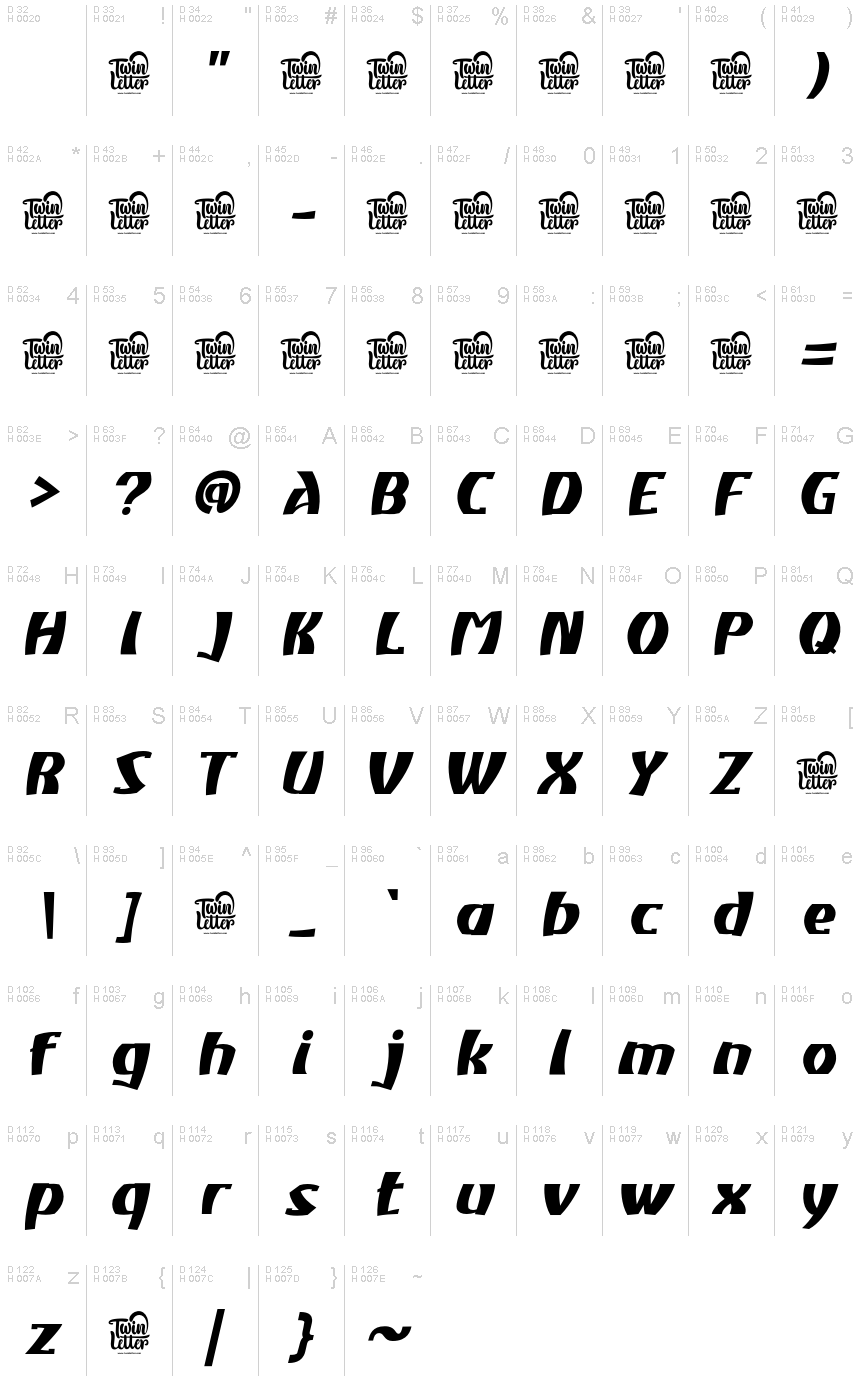
Atiku Bold Slanted font from the Atiku family, designed by Twinletter, is a distinguished choice for contemporary design projects. With its bold and slanted style infused with Japanese aesthetics, this font exudes a sense of luxury and uniqueness. Perfect for making your brand stand out, it enchants viewers with its exotic appeal and sophisticated charm.
Ideal for advertisements, social media posts, and creative projects, Atiku Bold Slanted offers versatility with numerous OpenType features across 18 styles. This free font download enables designers to craft captivating visuals quickly and effortlessly. Elevate your design repertoire with the Atiku font family and leave a lasting impression tailored to the next generation of discerning audiences.